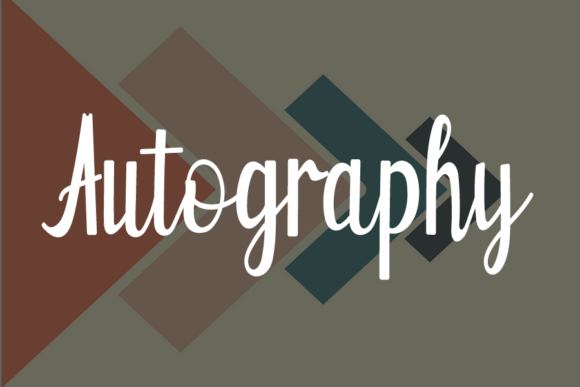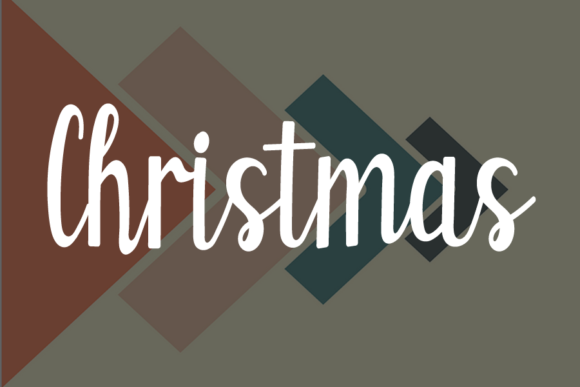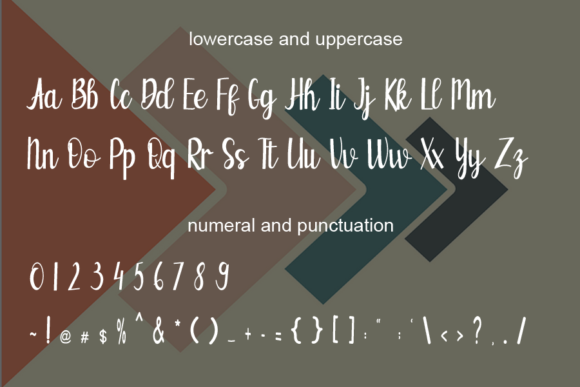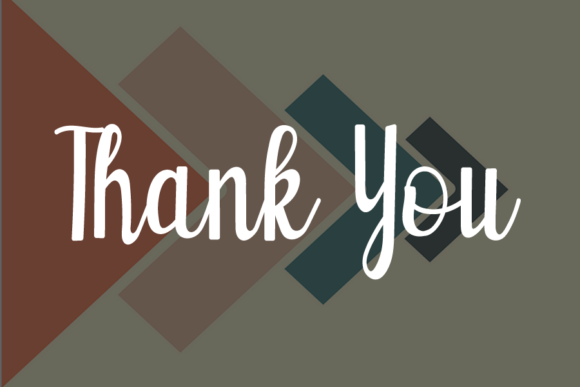
Introducing Before Font: A Timeless Handwritten Delight
Are you on the hunt for a font that adds a touch of elegance and sophistication to your designs? Look no further than Before Font, a lovely and timeless handwritten font that’s perfect for creating eye-catching logos, branding, and quotes. With its unique and beautiful touch, Before Font is sure to make your design come alive!
Handwritten fonts have a way of adding a personal touch to any design. They evoke a sense of warmth, friendliness, and approachability that’s hard to replicate with more formal fonts. Before Font is no exception, with its delicate and cursive script that’s sure to capture the hearts of designers and crafters alike.
What Makes Before Font Special?
So, what sets Before Font apart from other handwritten fonts on the market? For starters, every letter has a unique and beautiful touch that adds to the font’s overall charm. The attention to detail is evident in each carefully crafted character, making Before Font a standout choice for designers who want to create something truly special.
Before Font is incredibly versatile, making it suitable for a wide range of design applications. Whether you’re looking to create a stunning logo, develop a brand identity, or craft a quote that resonates with your audience, Before Font is the perfect choice. Its elegant and refined script is sure to elevate your design and leave a lasting impression.
Why Designers and Crafters Love Before Font
Designers and crafters love Before Font for many reasons. Here are just a few:
- Unique and Beautiful Touch: Each letter has a distinct character that adds to the font’s overall charm.
- Elegant and Refined Script: Before Font’s cursive script is perfect for creating sophisticated and eye-catching designs.
- Versatile: Suitable for a wide range of design applications, from logos and branding to quotes and more.
- Easy to Read: Despite its elegant script, Before Font is easy to read, making it perfect for designs that require a clear and concise message.
Tips for Using Before Font in Your Designs
Here are a few tips for using Before Font in your designs:
- Pair with a Sans-Serif Font: For a striking contrast, pair Before Font with a sans-serif font to create visual interest.
- Experiment with Colors: Before Font looks stunning in a range of colors, from bold and bright to soft and pastel.
- Use it for Headlines and Titles: Before Font is perfect for headlines and titles, where its elegant script can really shine.
In conclusion, Before Font is a timeless handwritten font that’s perfect for designers and crafters looking to add a touch of elegance and sophistication to their designs. With its unique and beautiful touch, Before Font is sure to make your design come alive! Whether you’re creating logos, branding, or quotes, Before Font is the perfect choice.